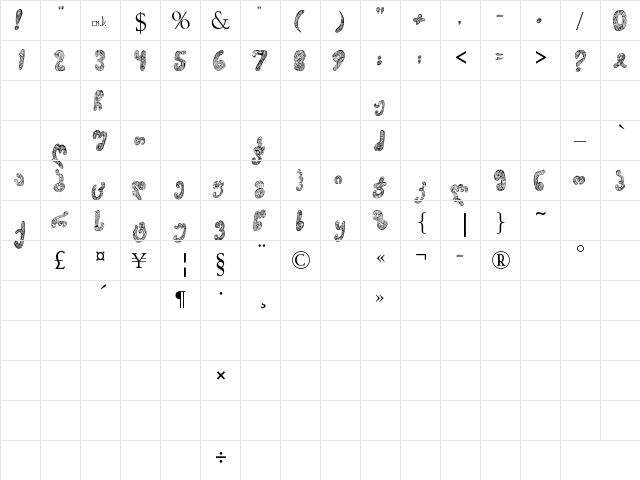
Thart_Ts_Geo Regular Font Preview
Thart_Ts_Geo Regular
Thart_Ts_Geo Regular Font Details
Design Context for Thart_Ts_Geo Typeface
Thart_Ts_Geo is a composed and adaptable typeface that performs quietly and consistently across a wide range of design contexts.